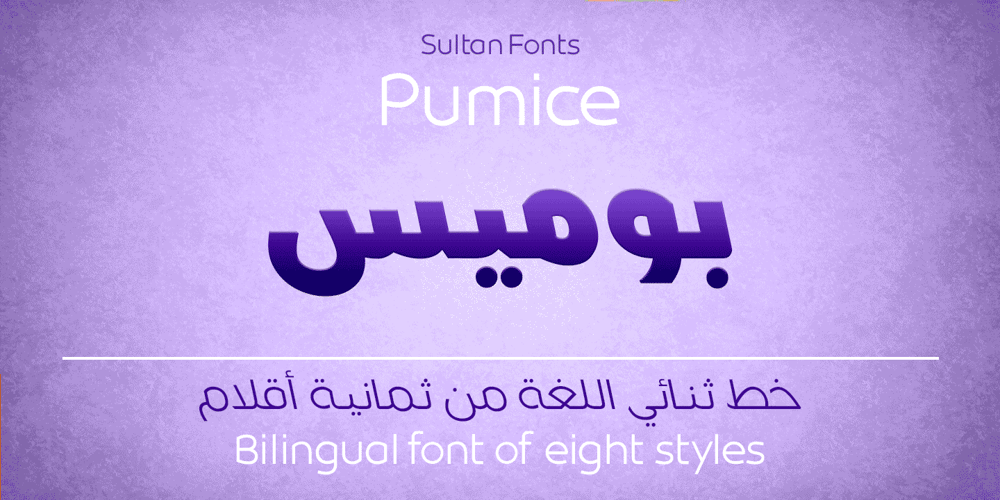
SF Pumice
SF Pumice font
SF Pumice Font Family was designed by Sultan Maqtari and published by Sultan Fonts. SF Pumice contains 8 styles and family package options. Pumice is a modern sans-serif typeface with characteristic and defined features. This font Name was inspired by the Aden pumice. Its design is composed of diverse 8 styles.Create unique designs by combining any of the upright weights with matching italics. Pumice includes a matching Latin design and support for Arabic, Persian, Kurdish, and Urdu.Pumice was specially designed for branding, advertising, editorial design, Web, and use on Tv and social media.Designers: Sultan MaqtariPublisher: Sultan Fonts